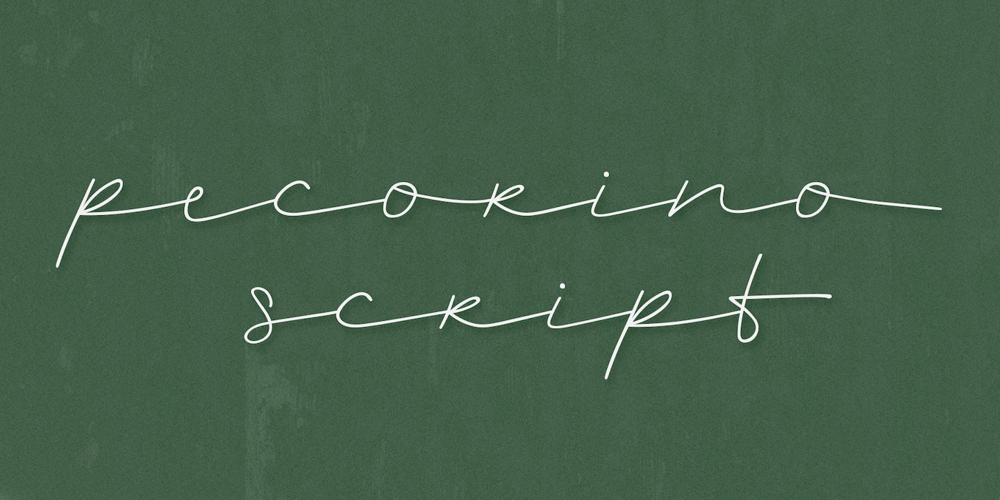
Pecorino Script Font Family was designed by Blythe Green and published by Blythe Green. Pecorino Script contains 1 styles and family package options. Pecorino Script is a lower-case script font with an authentic, handwritten feel. It’s perfect for: logos, branding, wedding invitations, greeting cards, quotes, textiles, posters, magazines, social media, planners, prints, and more.FEATURES: Stylistic end swashes to add personality Initial characters Multilingual accents + support